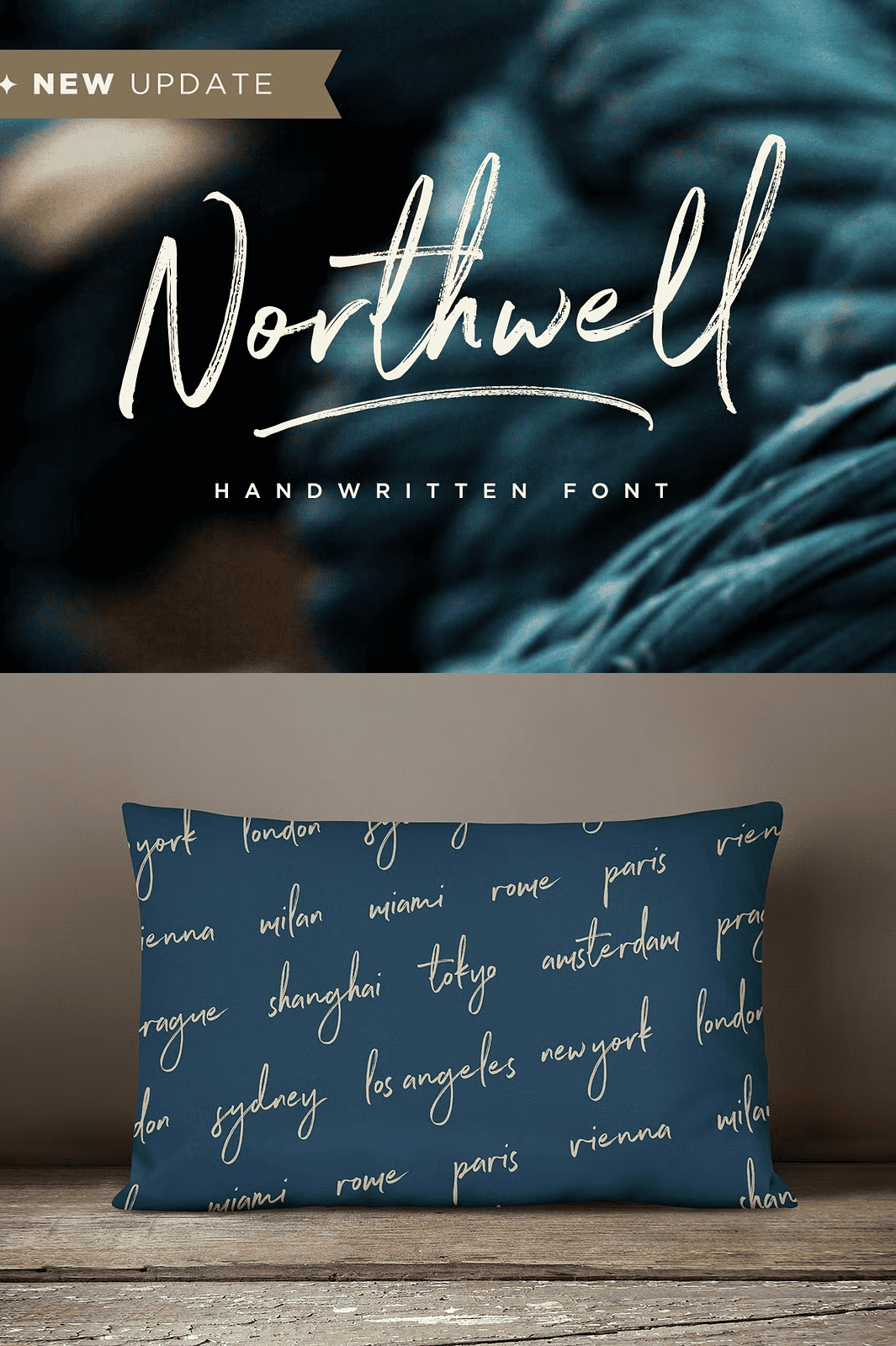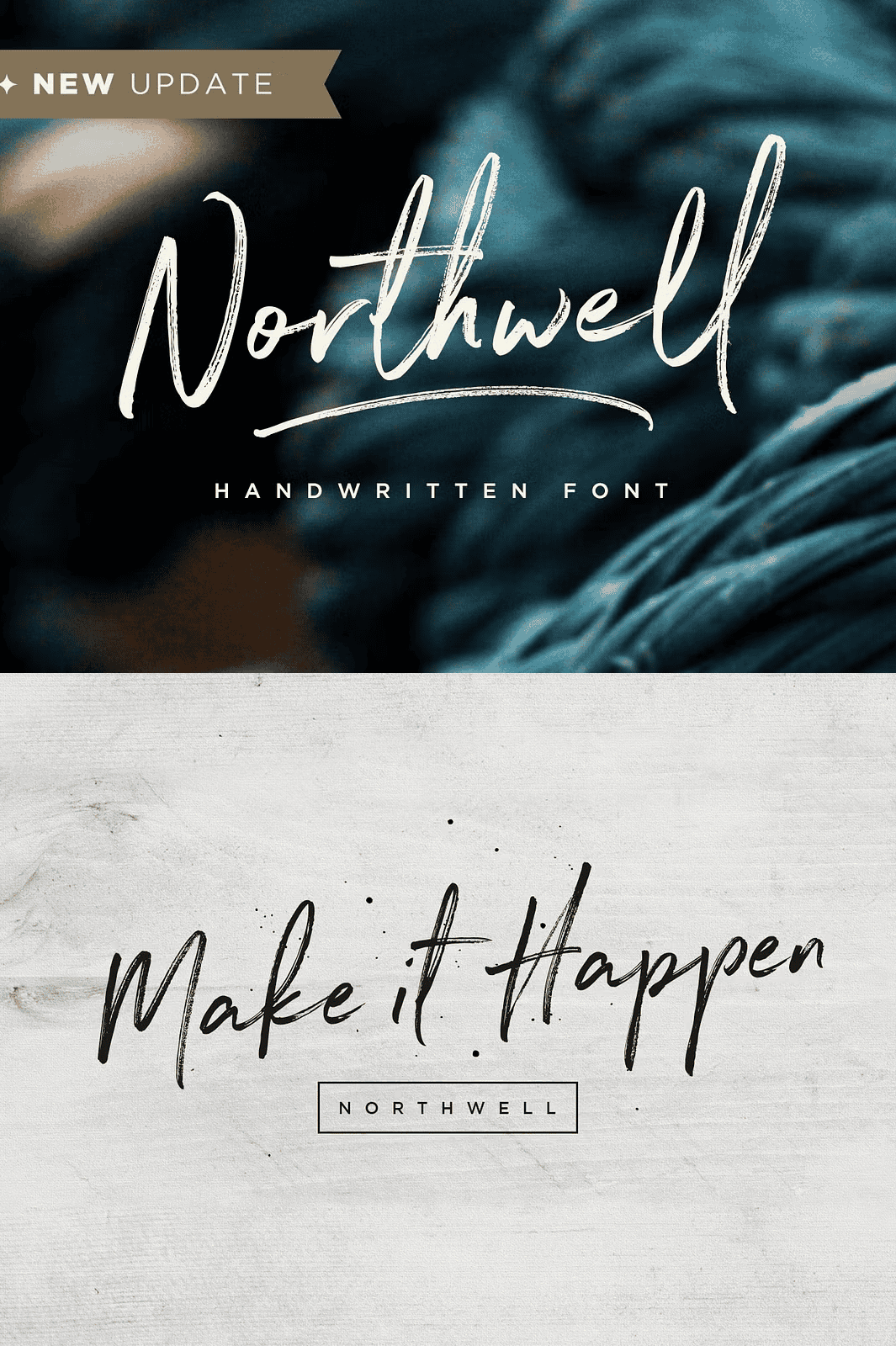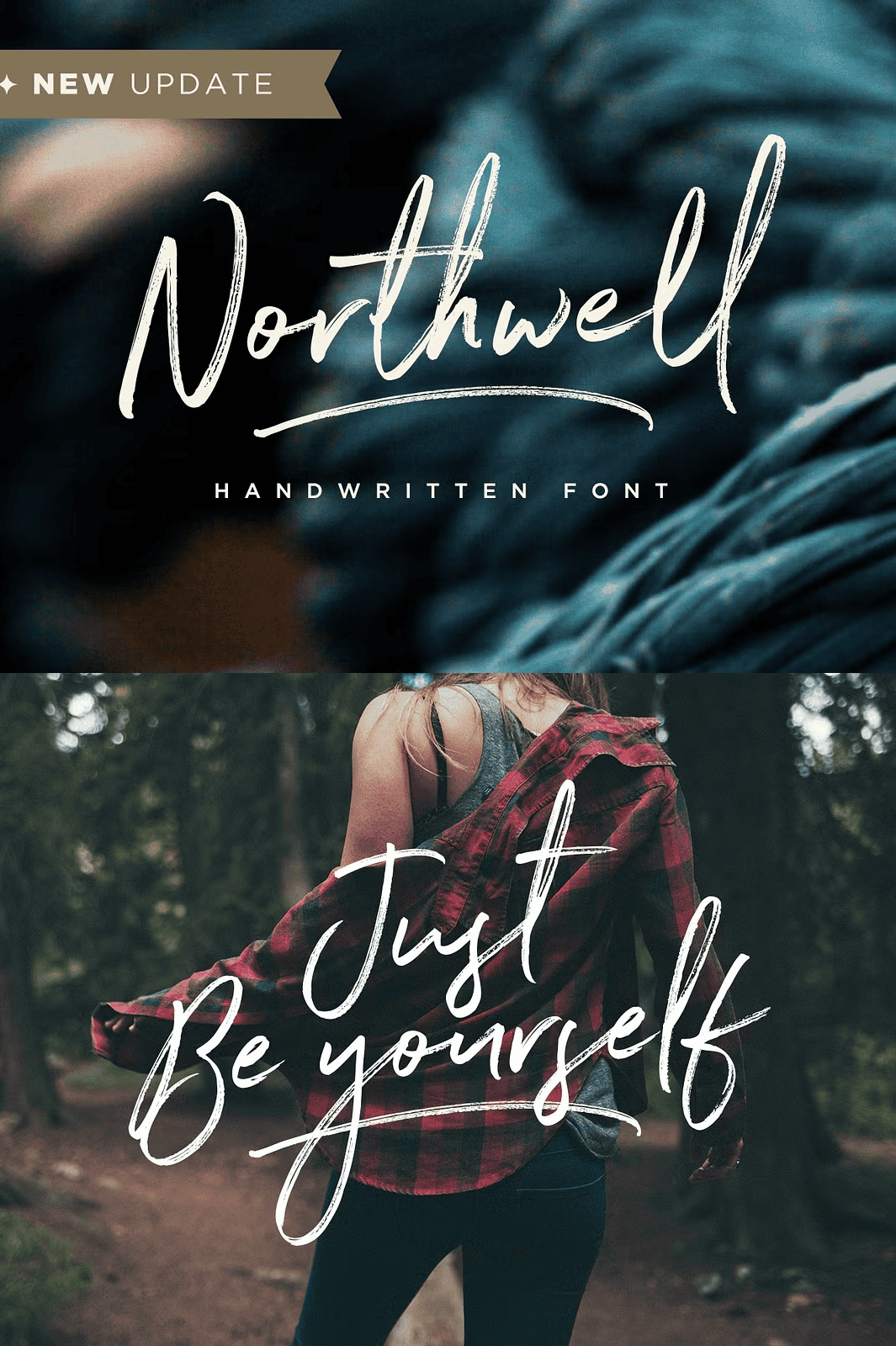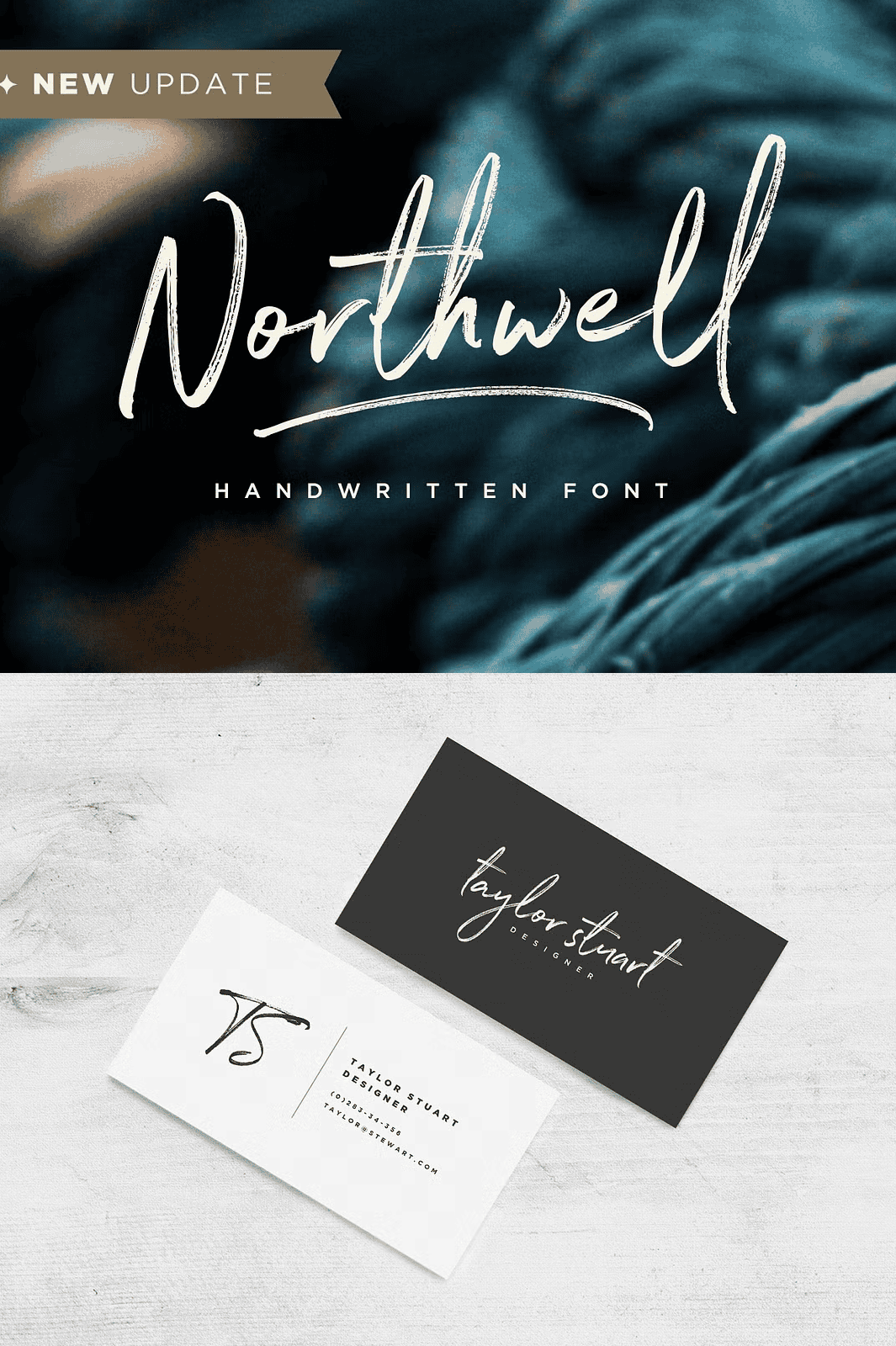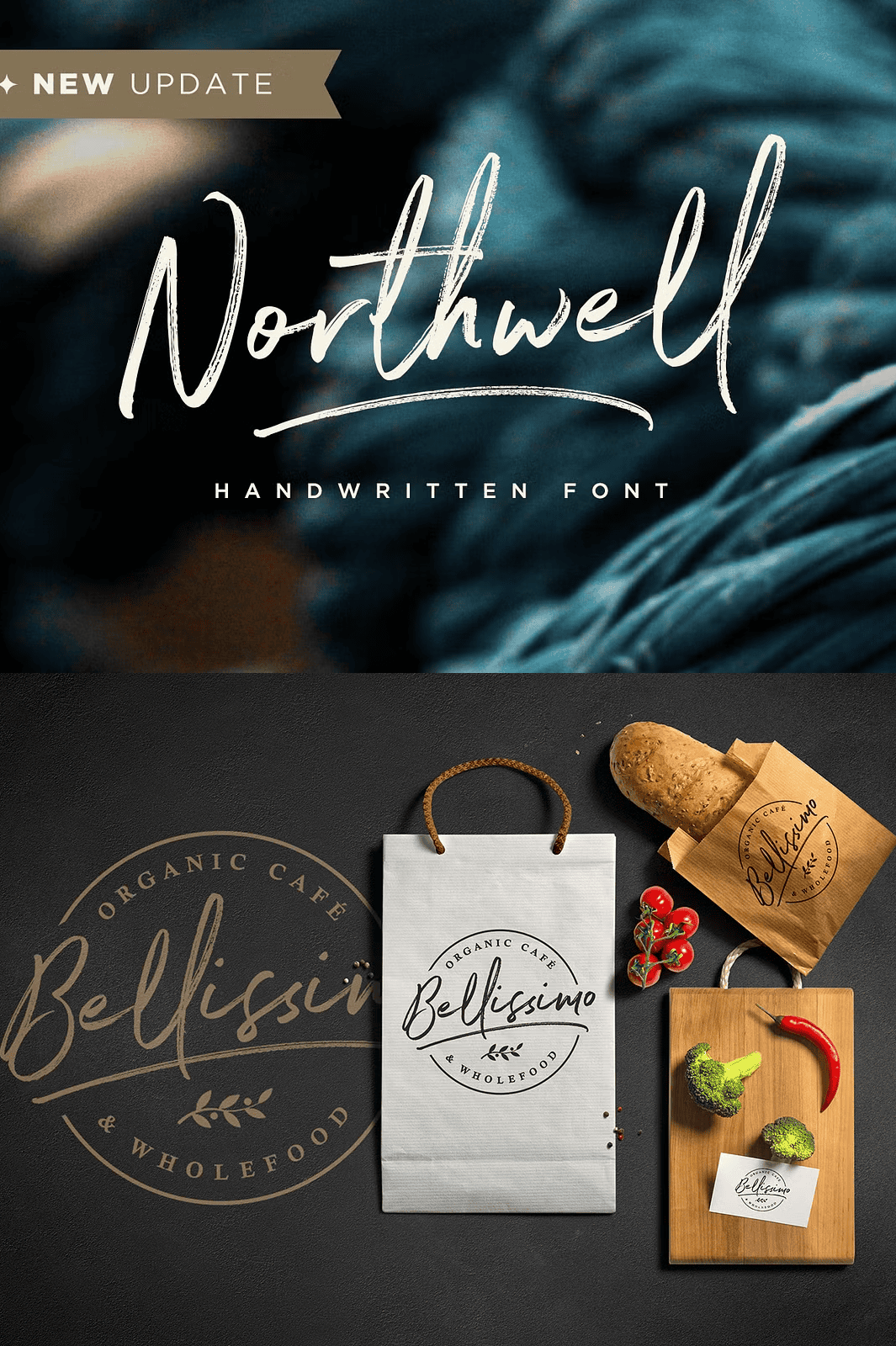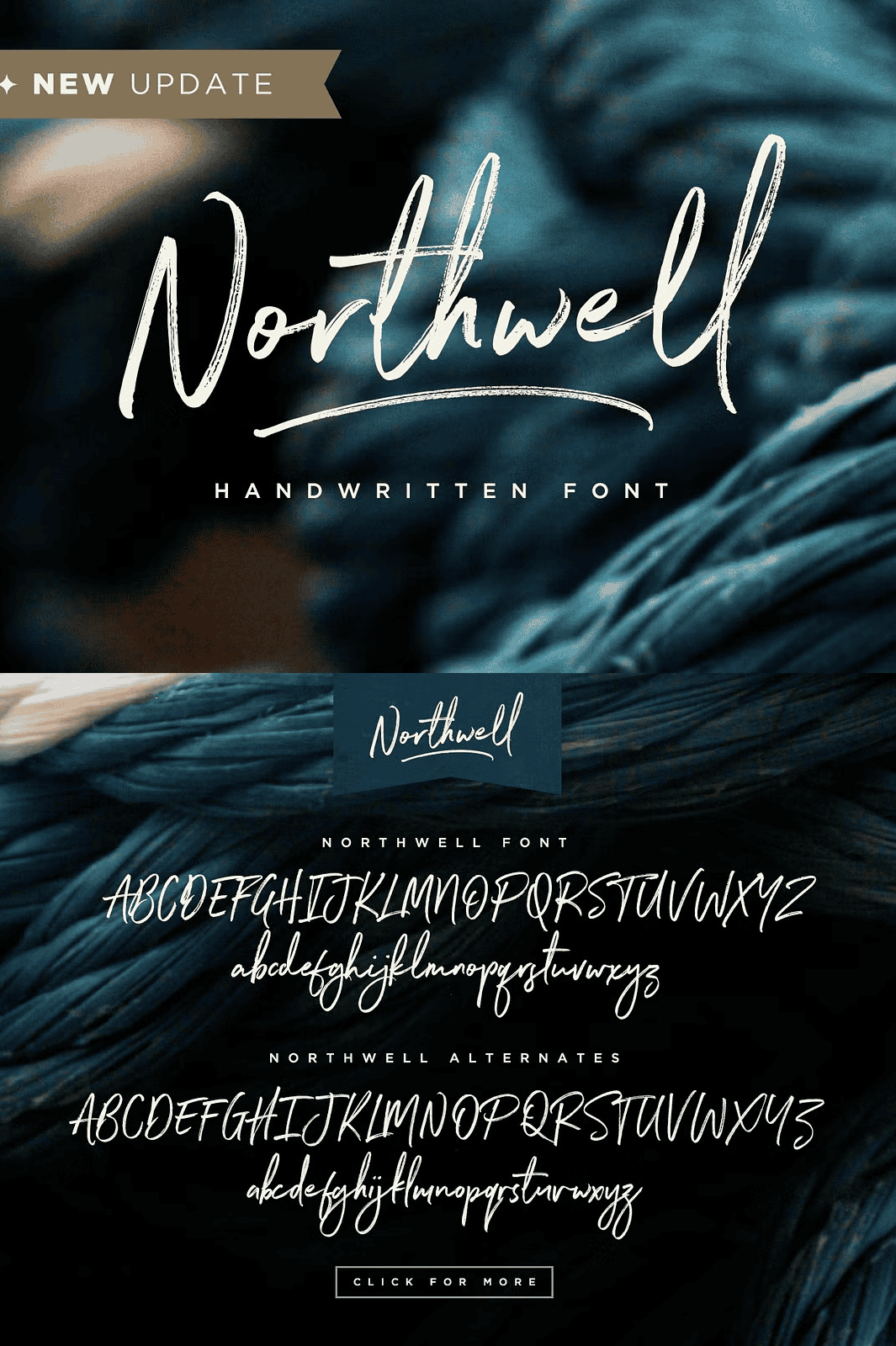
Northwell Font (New Update!)
Command Attention with a Font That Speaks with Personality and Precision
Transform your designs with **Northwell**, a bold, dapper handwritten font that blends rustic authenticity with modern polish. Crafted for designers who value character and versatility, Northwell delivers a uniquely personal touch — like a handwritten note from a trusted friend. Its dynamic strokes and expressive letterforms make it ideal for branding projects, homeware designs, product packaging, social media graphics, and stylish text overlays on any background image.
Whether you’re launching a boutique label, designing premium packaging, or adding flair to digital artwork, Northwell ensures your message stands out with charm and confidence.
Experience the Power of Two Distinct Styles with One Font Family
Northwell has been **revolutionized with a major update**, now offering **two complete styles** to match every creative vision:
– **Northwell Rustic**: Perfect for hand-made aesthetics, artisanal brands, or vintage-inspired themes. The textured brush strokes give your designs a raw, organic feel with a personalized, authentic touch.
– **Northwell Clean**: For a refined, professional finish. With all texture removed and edges smoothed, this version excels in high-precision printing and digital platforms — ideal for Cricut, Silhouette Studio, or clean minimalist layouts.
Switch between styles instantly. No need to juggle multiple fonts — just load the appropriate version and elevate your project with a single click.
Expand Your Toolkit with 6 Powerful Font Variants
– **Northwell**: The original bold script with upper and lowercase letters, numbers, punctuation, and full character range.
– **Northwell Alt**: A second variation featuring unique alternates for both upper and lowercase characters. Avoid repeating letterforms and create custom, handcrafted text flow.
– **Northwell Swash**: A set of 20 hand-drawn swashes for dramatic finishing touches. Easily access them by typing any letter from A to U — perfect for headlines, logos, or standout words.
– **Northwell Clean**: A smooth, texture-free version of the original script — ideal for high-contrast printing and clean design systems.
– **Northwell Clean Alt**: The clean counterpart to the alternate style, offering unique alternates without any grain.
– **Northwell Clean Swash**: Sleek swash additions without the roughness — the perfect blend of elegance and modernity.
This comprehensive set empowers you to experiment, innovate, and deliver unique results every time.
Design Globally with Full Multilingual Support
Enhance Flow with Built-In Ligatures